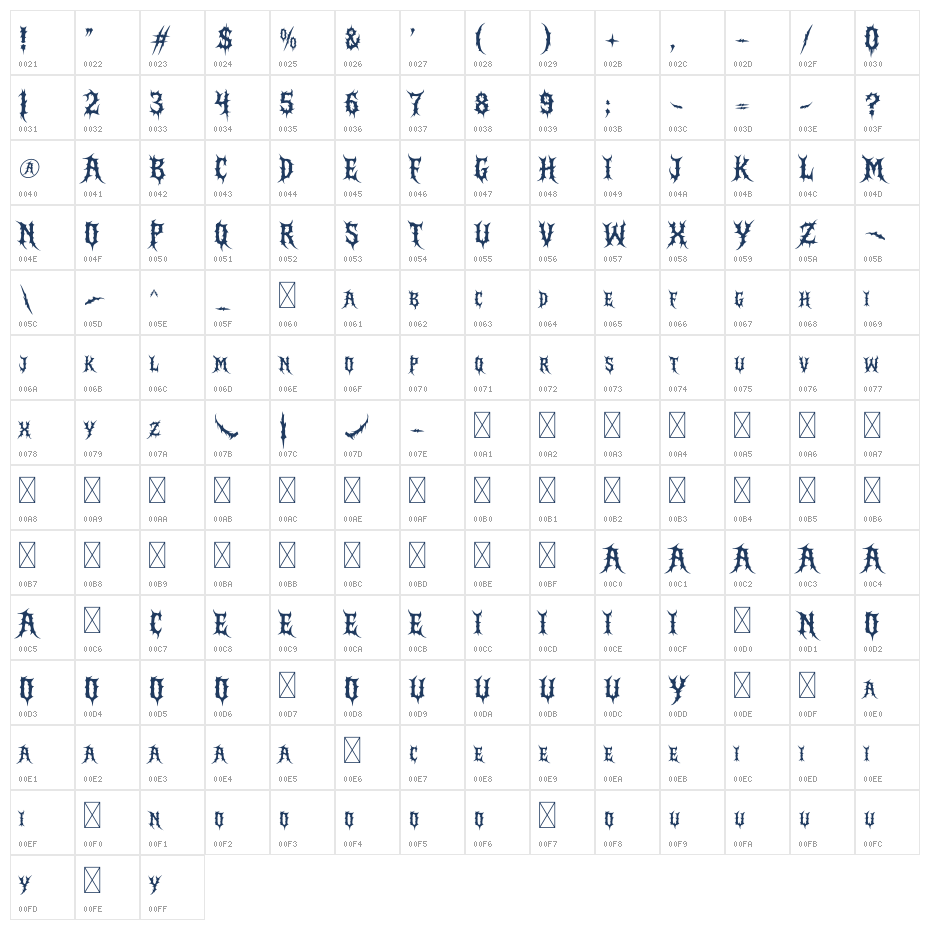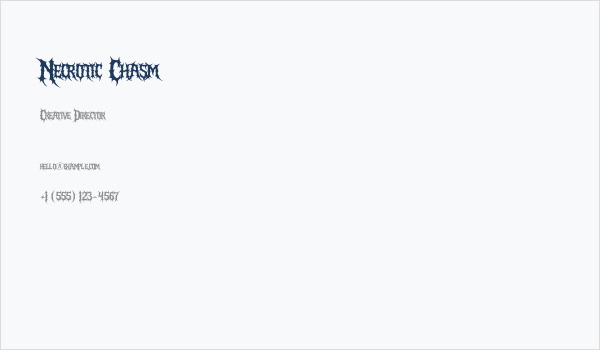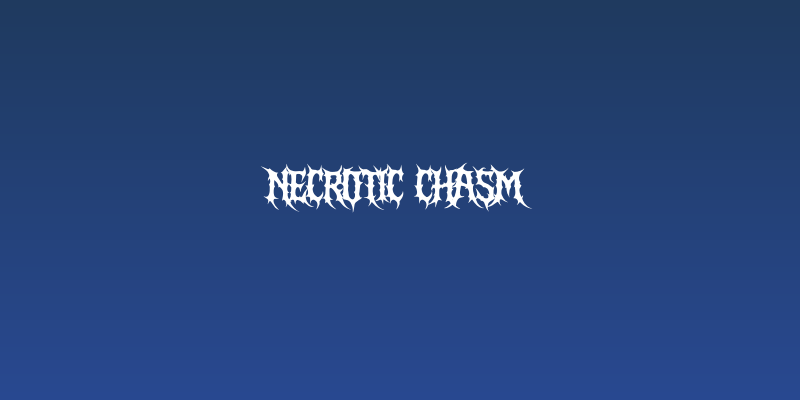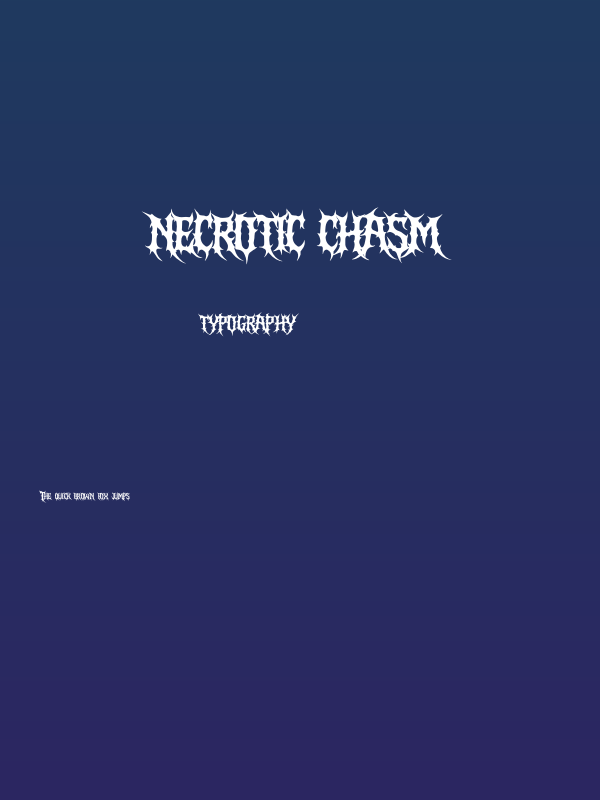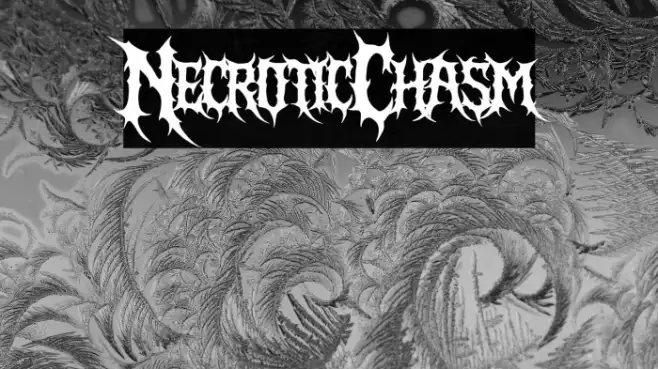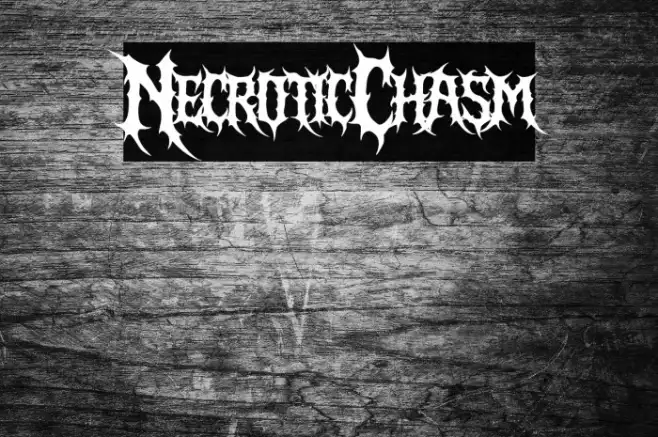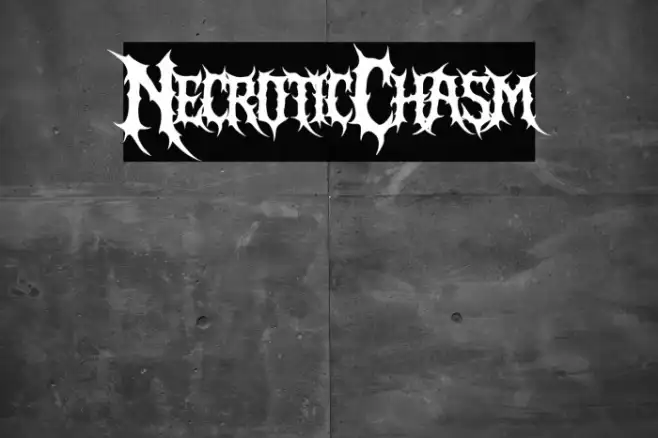
Necrotic Chasm Font
Necrotic Chasm Description
A decorative, gothic-style font with sharp, jagged edges and intricate details, resembling a horror or metal band aesthetic.